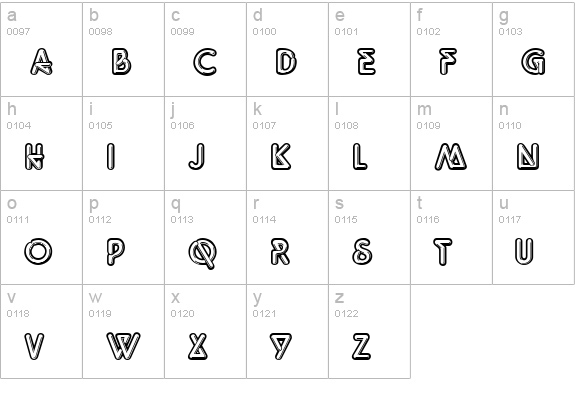
Quantum font is a modern and stylish typeface that will bring a touch of sophistication to any design project. With its sleek and sharp lines, this font exudes a sense of elegance and professionalism. Whether you are creating a logo, designing a website, or crafting a brand identity, Quantum font will add a sleek and contemporary look to your designs. One of the best things about Quantum font is that it is freely available to download at FontsMarket.com. This means that you can easily access and use this incredible font without having to spend a single penny. Whether you are a professional designer or a hobbyist, having access to high-quality fonts can make a world of difference in your creative projects. The versatility of Quantum font is another reason why it stands out from the crowd. Its clean and minimalist design allows it to be used in a wide range of contexts, from corporate materials to personal branding. Whether you are creating a sleek and modern website or designing a minimalist poster, Quantum font will enhance the visual impact of your work. Not only does Quantum font look great on screen, but it also prints beautifully. Its precise and well-defined shapes ensure that your designs will be crisp and clear, whether they are displayed on a digital screen or printed on physical materials. This font is a perfect choice for those who value attention to detail and want their designs to look flawless in any medium. So, if you are looking for a stylish and versatile font that is also free to download, look no further than Quantum font. Head over to FontsMarket.com and get your hands on this incredible typeface today. Elevate your designs and make a lasting impression with this sleek and modern font.